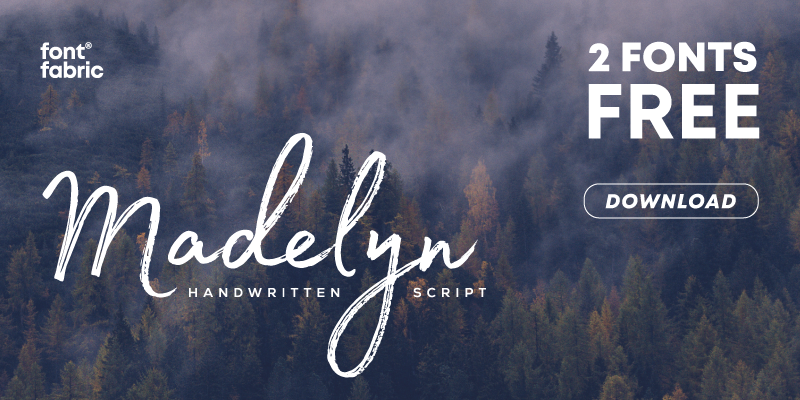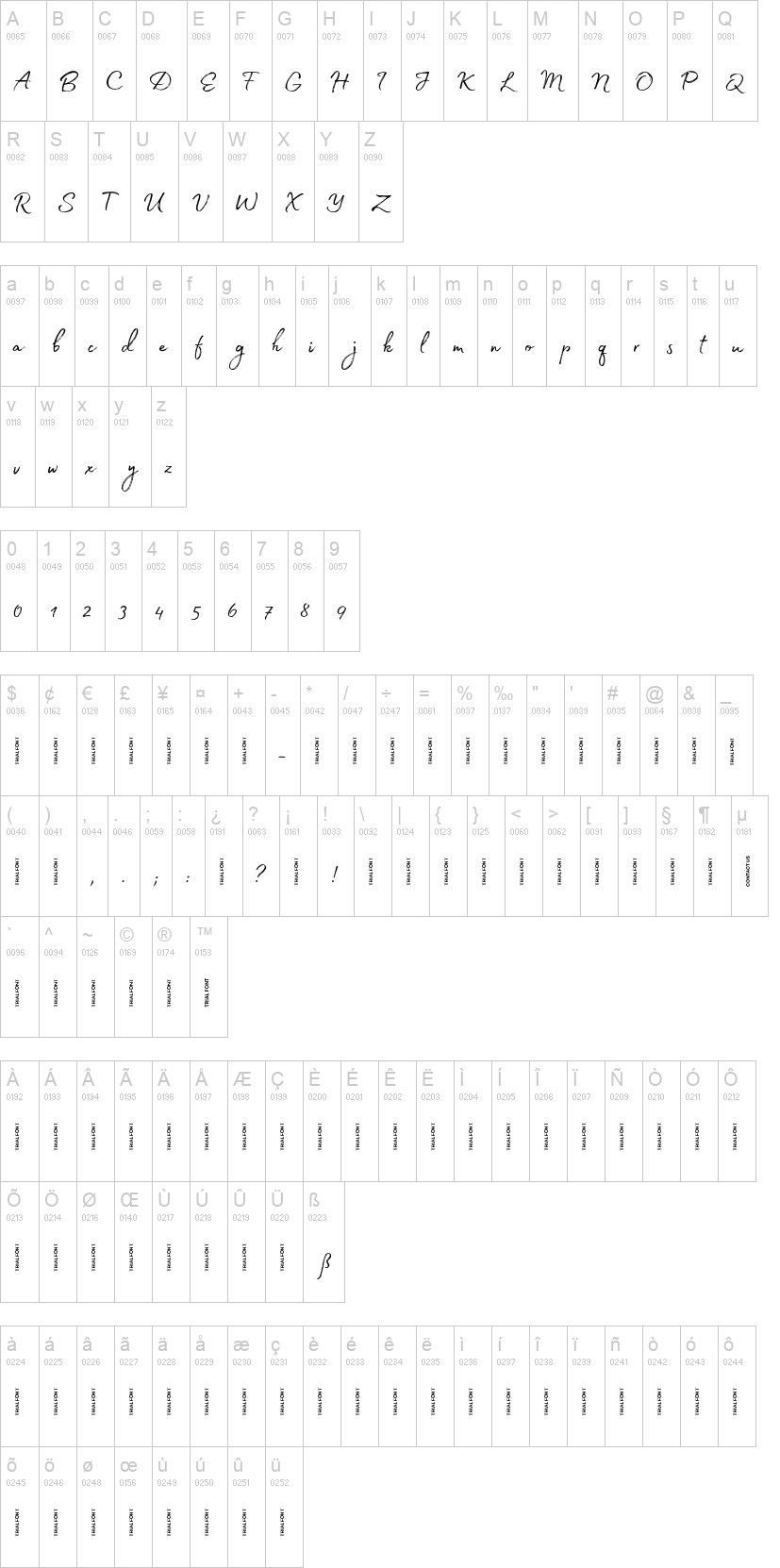
MadelynFill-Trial-Regular.ttfNote of the authorMadelyn is a handwritten script font based on the expression of real handwriting. Amiable and organic, it is perfect if you want to convey individuality and style. The Madelyn font is written with a calligraphy pen with casual dry strokes and a signature style.